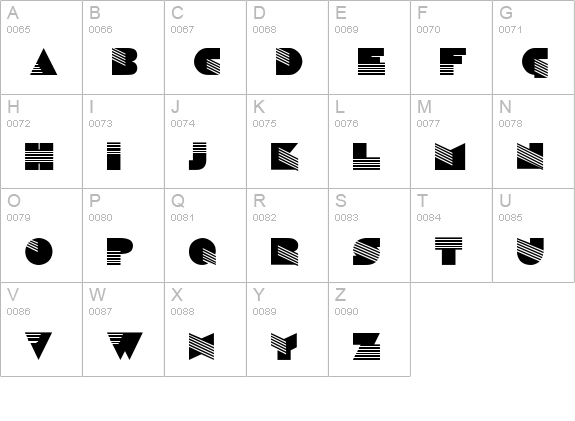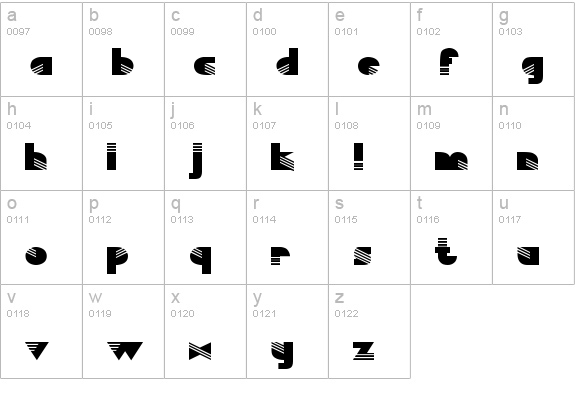
Muse Display SSi Font Details
Muse Display SSi font is a modern and stylish typeface that exudes elegance and sophistication. Its sleek lines and bold strokes make it perfect for headlines, titles, and other display purposes. With its clean and contemporary design, Muse Display SSi font adds a touch of class to any project. What's even better is that this stunning font is available for free download at FontsMarket.com. Now you can elevate your designs without breaking the bank. Whether you're working on a branding project, advertising campaign, or any other creative endeavor, Muse Display SSi font is sure to make a lasting impression. Download it today and add a touch of luxury to your typography.